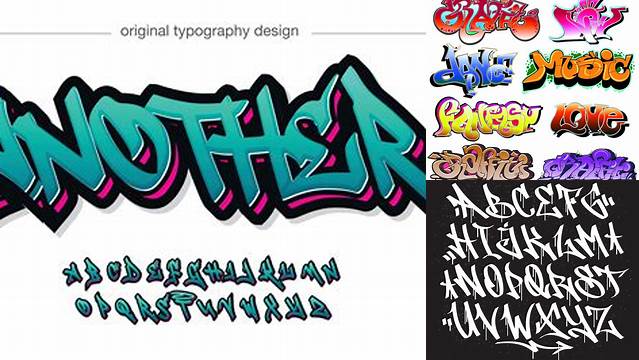
Graffiti Font Vector: Free Download Guide
Understanding Graffiti Fonts: More Than Just Tags
Alright guys, let's dive deep into the world of graffiti fonts. When you first hear 'graffiti font,' you might picture those wild, splashy tags you see on walls, right? But honestly, it's so much more than that! Graffiti fonts are a whole artistic movement translated into digital form. They embody a raw, urban energy, often characterized by bold strokes, dynamic curves, dripping effects, and sometimes even a sense of defiance. The beauty of these fonts lies in their versatility. While they originated from street art, they’ve exploded into graphic design, branding, and even personal projects. Think album covers, posters, T-shirt designs, logos for skate shops, or even just adding a cool vibe to your social media posts. The essence of a graffiti font is its unique personality. Each character is often hand-drawn, giving it an authentic, non-uniform feel that mass-produced fonts simply can't replicate. This distinctiveness is what makes them so powerful in making a statement. They scream individuality and creativity. When designers look for graffiti font vectors, they're not just looking for letters; they're seeking a specific aesthetic, a certain attitude that can elevate their work from ordinary to extraordinary. The digital age has made these artistic expressions incredibly accessible, allowing anyone with a computer to tap into this vibrant style. So, next time you see a graffiti font, remember it’s a piece of urban art ready to be unleashed in your next design project.
Why Vectors Are King for Graffiti Fonts
So, why are we talking specifically about graffiti font vectors? It's a super important distinction, guys, and here's why. When you download a font, it can come in different formats, and vector is usually the golden ticket, especially for something as dynamic as graffiti. Unlike raster images (like JPEGs or PNGs) which are made up of tiny pixels, vector graphics are based on mathematical equations. This means they are infinitely scalable. You can blow up a vector graphic to the size of a billboard or shrink it down to a postage stamp, and it will never lose its quality or get blurry. For graffiti fonts, this is a massive deal. Imagine you've created an awesome logo with a killer graffiti font. You want to print it on a business card, sure, but you also might want to put it on a massive banner for an event. If your font isn't a vector, that banner print will look jagged and pixelated, totally ruining the vibe. Vector formats like .AI (Adobe Illustrator), .EPS (Encapsulated PostScript), or .SVG (Scalable Vector Graphics) maintain crisp, clean lines no matter the size. This is crucial for the often intricate and detailed nature of graffiti lettering. The sharp edges and smooth curves that define these fonts stay sharp and smooth. Plus, vector files are usually easier to edit and manipulate. You can change colors, adjust stroke weights, or even modify individual letterforms within vector software like Adobe Illustrator or Inkscape. This level of control is invaluable when you want to customize a graffiti font to perfectly match your project’s needs. So, when you're hunting for that perfect graffiti font, always prioritize vector formats for maximum flexibility and professional results.
Exploring Free Graffiti Font Download Options
Now, let's get to the good stuff: finding free graffiti font downloads! The internet is a treasure trove, guys, but it can also be a bit of a wild west. You need to know where to look and what to watch out for. Many designers and font foundries generously offer some of their creations for free, often for personal use, sometimes even for commercial projects. Websites like DaFont, FontSquirrel, UrbanFonts, and Google Fonts (though less focused on typical graffiti styles, they have some edgier options) are great starting points. When you land on these sites, search for terms like 'graffiti,' 'urban,' 'street art,' or 'hip hop' fonts. You'll find a mind-boggling array of styles – from clean, blocky graffiti lettering to wild, dripping, and elaborate throw-ups. Always, always check the license agreement! This is super important. Free doesn't always mean free for everything. Some fonts are free for personal use only (like for your blog or personal social media), while others allow commercial use (meaning you can use them in designs you sell or for a business). Misunderstanding licenses can lead to legal headaches down the line, so take a moment to read the fine print. Look for keywords like 'free for personal use' or 'free for commercial use.' Sometimes, you might even find bundles or collections of free graffiti font vectors offered by artists looking to gain exposure. Keep an eye out on design communities and forums too. The key is persistence and careful checking. Don't just grab the first cool-looking font you see; verify its licensing and download from reputable sources to ensure you're getting clean, usable files.
Finding High-Quality Free Graffiti Font Vectors
Okay, so you've found some free graffiti fonts, but are they good? That's the next question, right? Not all free downloads are created equal, guys. Sometimes, free fonts can be a bit rough around the edges – think incomplete character sets (missing numbers or punctuation), inconsistent spacing (kerning nightmares!), or just poorly designed letterforms that don't quite capture the authentic graffiti spirit. When you're on the hunt for high-quality free graffiti font vectors, here's what to keep an eye out for. First, check the completeness of the character set. Does it have all the letters (uppercase and lowercase), numbers, and common punctuation marks you'll need? Some graffiti fonts are intentionally stylized, so seeing a limited set might be okay, but for general use, a full set is ideal. Second, look at the overall design consistency. Do the letters flow well together? Is the weight and style consistent across the alphabet? Check out the preview images provided by the font creator – zoom in if you can. Third, consider the source. Fonts from established free font sites like FontSquirrel or Google Fonts are often curated and tested for quality. If you're downloading from a less-known source, try to find reviews or see examples of the font used in real-world designs. Many artists who offer freebies will showcase their work, giving you a glimpse of the font's potential. Finally, remember that vector is still key. Ensure the download you're getting is in a vector format (.AI, .EPS, .SVG) if possible, or at least a high-resolution raster format that can be vectorized later if needed. Sometimes, you might find free vector packs that include graffiti-style lettering, which can be a fantastic resource. Don't settle for pixelated messes; aim for clean, versatile, and artistically sound graffiti vectors that will make your projects shine.
The Versatility of Graffiti Font Downloads
Let's talk about how incredibly versatile graffiti font downloads are, even the free ones! It’s not just about slapping text onto a poster, guys. These fonts can genuinely transform the look and feel of a project, adding an instant dose of urban cool and artistic flair. Think about branding for a startup. A carefully chosen graffiti font for a logo can communicate edginess, creativity, and a connection to youth culture, which might be perfect for a streetwear brand, a music label, or a tech company trying to disrupt the market. For merchandise, imagine T-shirts, hoodies, or hats emblazoned with bold graffiti lettering – instant street cred! Event promotion is another huge area. Posters for concerts, club nights, art exhibitions, or even community festivals can benefit immensely from the energetic vibe of graffiti fonts. They grab attention and signal a non-traditional, exciting event. In digital design, the applications are endless. Website headers, social media graphics, YouTube thumbnails, app icons – a well-placed graffiti font can make your content stand out in a crowded digital space. Even for personal projects, like creating custom invitations for a party, designing a unique birthday card, or personalizing a piece of digital art, graffiti fonts offer a way to inject personality and style. The key is understanding the context. While a wild, dripping font might be perfect for a punk band's flyer, a cleaner, more structured graffiti font could work wonders for a corporate brand aiming for a modern, urban aesthetic. Experimenting with different styles and seeing how they integrate with other design elements – colors, images, layouts – is where the magic happens. Graffiti fonts aren't just letters; they're a design tool that speaks a language of energy, rebellion, and artistic expression.
Finding Graffiti Font Bundles and Collections
Looking for graffiti font bundles or collections can be a really smart way to score a bunch of cool typefaces at once, sometimes even for free or at a significant discount! Instead of downloading individual fonts one by one, which can be time-consuming, bundles often group related styles together. You might find a pack dedicated to 'urban fonts,' 'street art styles,' or even specific subgenres of graffiti lettering. These collections are great because they often provide a cohesive set of fonts that work well together, ensuring consistency in your design projects. Where can you find these? Keep an eye on marketplaces like Creative Market, Envato Elements (which offers a subscription model), or bundles offered directly by font designers on platforms like MyFonts or Fontspring. While many bundles are paid, they often represent incredible value, giving you dozens of high-quality fonts for the price of just one or two. But what about free bundles? Sometimes, designers or platforms will offer limited-time freebies or special promotions where you can grab a selection of fonts at no cost. Following your favorite font foundries or graphic design resources on social media or signing up for their newsletters is a good way to stay informed about these opportunities. You might also find 'free font' sites that periodically release curated collections. When evaluating a bundle, check the quality and style of the fonts included. Do they align with the kind of look you're going for? And just like with individual fonts, always verify the licensing terms for the entire bundle. Are they all free for commercial use, or is there a mix? Understanding the licensing for each font within the bundle is crucial. Bundles can seriously level up your font library quickly, providing a diverse range of graffiti styles to play with.
Popular Styles of Graffiti Fonts Available
Graffiti art itself is incredibly diverse, and so are the fonts that emulate it, guys! When you're searching for graffiti font vector free download options, you'll encounter a whole spectrum of styles. Let's break down some of the most popular ones you'll likely find. First, you have the Bubble Style or Balloon Graffiti Fonts. These are characterized by their rounded, puffy, inflated letterforms that look like they're about to float away. They’re friendly, playful, and often used for more lighthearted or introductory designs. Think kids' party invitations or casual branding. Then there are Wildstyle Fonts. These are the most complex and intricate. Wildstyle involves overlapping letters, connecting strokes, arrow motifs, and often abstract elements. They're hard to read for the uninitiated but incredibly dynamic and visually stunning. These fonts are perfect for making a bold, artistic statement where legibility isn't the absolute top priority, but visual impact is. Next up are Blockbuster Fonts. These are typically bold, strong, and often have sharp edges or a stencil-like quality. They convey power, impact, and are great for headlines, titles, and anywhere you need text to command attention. Think movie posters or sports branding. You'll also find Dripping Fonts. As the name suggests, these fonts mimic the effect of paint literally dripping down the surface. They add a sense of urgency, messiness, and raw energy. They can be quite dramatic and are often used for music or extreme sports related designs. Finally, there are Stencil Fonts, which mimic the look of letters cut out of a stencil, often with small breaks or caps to allow the stencil material to hold together. These have a utilitarian, often rebellious feel, frequently associated with political or protest art. Understanding these different styles will help you narrow down your search and pick the perfect graffiti font to match the vibe of your project. Each style tells a different story and conveys a unique emotion.
Bubble Style Graffiti Fonts for Playful Designs
Let's get bubbly, guys! Bubble style graffiti fonts are all about that rounded, inflated look. Imagine letters that are so plump and full, they almost seem like they’re made of balloons ready to take flight. This style is inherently playful, friendly, and approachable. Unlike the aggressive or complex wildstyle, bubble fonts have a softer, more inviting aesthetic. They’re super popular for designs aimed at a younger audience or for projects that need to convey a sense of fun and lightheartedness. Think about birthday invitations for kids – a bubble font makes the text feel like part of a party. Or maybe a logo for a candy store, a toy shop, or an ice cream parlor; the roundness instantly communicates sweetness and joy. Even in branding for more general products, a touch of bubble style can make a brand feel more accessible and less intimidating. When you're looking for free graffiti font vectors, searching specifically for 'bubble graffiti,' 'balloon font,' or 'rounded graffiti' might yield great results. You’ll find variations where the bubbles are perfectly smooth and uniform, or others where they have a slightly more hand-drawn, irregular feel, adding to their charm. They can be fantastic for headlines, especially when you want to create a cheerful and eye-catching display. While they might not be suitable for a formal document, for anything requiring a dose of fun and whimsy, bubble style graffiti fonts are an absolute go-to. They bring an instant smile and a sense of playful energy to any design, making them a staple in the graphic designer's toolkit for lighthearted projects.
Wildstyle Graffiti Fonts: Complex and Artistic
Now, we're moving into the deep end of the pool with wildstyle graffiti fonts. If bubble letters are the friendly hello, wildstyle is the complex, mind-bending conversation you have with a seasoned artist. This is where graffiti lettering truly becomes an art form in itself. Wildstyle is characterized by its extreme complexity, with letters often interwoven, overlapping, and connected in ways that can make them challenging to decipher for the untrained eye. Think intricate curves, sharp angles, exaggerated flourishes, and often abstract elements thrown into the mix – arrows, crowns, or other symbolic motifs are common. These fonts aren't just about conveying text; they are about creating a visually arresting piece of art. When you download wildstyle graffiti fonts, you're getting something that carries a lot of attitude and artistic flair. They are perfect for projects where you want to make a powerful, edgy statement and where the visual impact is paramount. This could be album covers for hip-hop or electronic music, posters for underground art shows, avant-garde fashion designs, or distinctive branding for brands that want to project a highly creative and unconventional image. Because of their complexity, legibility can sometimes be an issue, so they're often best used for headlines, titles, or short bursts of text where the artistic form takes precedence. When searching for these, use terms like 'wildstyle,' 'complex graffiti,' or 'artistic graffiti font.' The download will likely be a vector file, allowing you to appreciate the intricate details and potentially even tweak them in vector software. Wildstyle fonts are the pinnacle of graffiti lettering artistry, offering unparalleled visual richness and a truly unique aesthetic.
Blockbuster Graffiti Fonts for Bold Statements
Need to make a statement that shouts? Blockbuster graffiti fonts are your best bet, guys! These fonts are designed for impact. Think big, bold, and unmissable. They often feature thick, heavy strokes, strong geometric shapes, and a solid, grounded presence. The 'blockbuster' name itself suggests something large-scale, attention-grabbing, and powerful, much like a hit movie title. These fonts typically have a clean but powerful aesthetic, often incorporating sharp corners or defined edges that give them a sturdy, impactful look. They are the go-to choice for headlines, titles, posters, banners, and any design element where you need the text to grab immediate attention and convey a sense of strength or importance. Imagine the title treatment for an action movie, the name of a sports team, or the headline on a promotional flyer for a major event – these are the kinds of applications where blockbuster graffiti fonts truly shine. They convey authority and presence without necessarily being overly ornate or complex like wildstyle. When you're looking for free graffiti font downloads, searching for 'block graffiti,' 'bold graffiti,' 'urban block font,' or even 'stencil graffiti' (as some block styles incorporate stencil elements) can lead you to great options. Because of their strong, defined shapes, they often work exceptionally well as vector graphics, maintaining their crispness even at large sizes. These fonts are perfect for designers who want to create a strong visual hierarchy and ensure their key messages aren't missed. They pack a punch and deliver maximum readability with maximum style.
Dripping Graffiti Fonts for a Raw, Edgy Feel
Let's talk about that authentic, messy vibe – the dripping graffiti fonts! These fonts literally mimic the look of paint running down a surface, giving your designs an instant raw, edgy, and energetic feel. It’s that classic street art look that many people associate with graffiti. The 'drips' can range from subtle, short trickles to long, dramatic streams, adding a dynamic element to the typography. This style is fantastic for projects that need to convey a sense of urgency, rebellion, or a 'just-off-the-streets' authenticity. Think about logos for skate brands, music genres like punk or hardcore, posters for underground events, or even just adding a cool, rebellious accent to a design. When you download free graffiti font vectors with a dripping effect, you're getting something that feels inherently dynamic. The natural flow of the drips can add a sense of movement to your text, making it feel alive and spontaneous. They can be incredibly eye-catching, especially when used for headlines or prominent text elements. However, like wildstyle, the drips can sometimes impact legibility, so they’re often best used where the artistic effect is more important than perfect readability. When searching, use terms like 'dripping graffiti font,' 'paint drip font,' or 'running paint font.' You'll find a range of styles, from slightly stylized drips to hyper-realistic ones. These fonts are perfect for injecting personality and a distinct urban flavor into your work, capturing that unmistakable feeling of freshly sprayed art.
Stencil Graffiti Fonts: Urban and Utilitarian
Moving on to another iconic graffiti look: stencil graffiti fonts. These fonts are inspired by the technique of using stencils to spray paint images or text onto surfaces. You know, like you see on walls, often used for quick, repeated messaging or political statements. The key characteristic of stencil fonts is the presence of breaks or 'bridges' within the letterforms, necessary to hold the stencil material together. This gives them a distinct, utilitarian, and often rugged appearance. They can range from clean, industrial-looking stencils to more distressed and grungy versions that look like they've been used and abused. Stencil graffiti fonts convey a sense of urgency, practicality, and often a rebellious or anti-establishment attitude. They're frequently associated with urban environments, military aesthetics, or protest art. Think posters for social movements, branding for rugged workwear, or even just adding a gritty texture to a design. When you download free graffiti font vectors in this style, you get that sharp, defined look that holds up incredibly well, especially at larger sizes. They are highly legible, despite the breaks in the letters, making them suitable for both headlines and body text in certain contexts. Popular search terms would include 'stencil font,' 'military stencil,' 'urban stencil,' or 'graffiti stencil.' They offer a raw, authentic urban feel that’s both functional and stylish, making them a powerful tool for designers looking to add a touch of gritty realism to their projects.
Where to Find Free Graffiti Font Downloads
Alright, you're hyped to find some cool graffiti fonts, but where do you actually go, guys? The digital world is brimming with options, but sticking to reliable sources is key to finding quality and avoiding headaches. One of the most popular and long-standing resources is DaFont. It’s a massive archive with thousands of free fonts, easily searchable by category, including 'Graffiti.' While you need to be diligent about checking the licenses (many are for personal use only), it’s a fantastic starting point. Another top-tier resource is FontSquirrel. They curate a collection of high-quality, free fonts, and crucially, they meticulously check the licensing, making it easier to find fonts suitable for commercial use. Their search filters are great for narrowing down styles. UrbanFonts is another solid option, offering a good selection of graffiti and urban-style fonts, again with varying license types. For a more curated experience, check out Google Fonts. While it doesn't have a huge selection of traditional 'graffiti' styles, it does offer some edgier, display-oriented fonts that can sometimes fit the bill, and all Google Fonts are free for commercial use. Beyond these major players, keep an eye on independent font designer portfolios and marketplaces. Sometimes designers will offer a few of their graffiti fonts for free as a promotion or as a sample of their work. Websites like Behance or Dribbble can be good places to discover these designers – often, they’ll link directly to their free downloads. Finally, don't forget dedicated vector sites like Freepik or Vecteezy. While they offer vectors in general, they often have font files or lettering packs in graffiti styles available for free download (remember to check their specific attribution requirements!). Always download from the source or a reputable aggregator to ensure file integrity and accurate licensing information.
DaFont: A Go-To for Free Fonts
Okay, let's talk about DaFont. If you've ever downloaded a free font online, chances are you've been here, guys. DaFont is practically a legend in the free font universe. It hosts an enormous library of typefaces submitted by designers from all over the globe. The sheer volume is staggering, and importantly for us, they have a dedicated 'Graffiti' category, alongside related ones like 'Script,' 'Dingbats,' and 'Fancy,' where you can often find graffiti-inspired styles. Navigating DaFont is pretty straightforward. You can browse by category, use their search bar (typing in 'graffiti,' 'urban,' 'street,' etc.), or check out their 'New Fonts' or 'Popular' sections. The real key when using DaFont, however, is understanding the licensing. Next to each font, you'll see an indication of its license type – typically '100% Free,' 'Free for Personal Use,' or sometimes links to commercial licenses. You must pay attention to this. A font marked 'Free for Personal Use' cannot legally be used for logos, business materials, or any project where you're making money. While DaFont is an amazing resource for discovering a vast array of graffiti styles, from the subtle to the extreme, always double-check the specific license terms before incorporating a font into a project, especially a commercial one. Despite the licensing diligence required, DaFont remains an indispensable tool for finding unique and expressive graffiti fonts without spending a dime for personal projects.
FontSquirrel: Quality and Commercial-Free Options
When you're hunting for free graffiti font downloads, but you really need to make sure they're safe for commercial use, FontSquirrel is your absolute best friend, guys. This site is different because it focuses specifically on high-quality fonts that are free for commercial use. They meticulously comb the web, find great fonts, and verify their licenses. This saves you a ton of time and potential legal trouble. Their search functionality is excellent, allowing you to filter by various attributes, including style. You can search for 'display' fonts or use keywords like 'urban,' 'street,' or even specific stylistic elements if you know them. While FontSquirrel might not have the sheer volume of obscure graffiti styles you'd find on DaFont, the fonts they do have are generally well-designed, professionally produced, and crucially, licensed for business use. This is a huge advantage if you're a freelancer, a small business owner, or working on any project that involves monetization. You can be much more confident that the fonts you download from FontSquirrel are legally sound for your commercial endeavors. They also offer features like a font identifier and a webfont generator, making it a comprehensive resource for designers. So, if your priority is finding quality graffiti fonts that are genuinely free for commercial projects, FontSquirrel should be at the top of your list. It’s all about finding those gems that are both stylish and legally sound for your business needs.
UrbanFonts: A Solid Selection of Urban Styles
Looking for that specific urban flavor? UrbanFonts is a great place to explore, guys. As the name suggests, this website has a strong focus on fonts that fit an urban aesthetic, which naturally includes a wide variety of graffiti and street-art-inspired styles. You'll find everything from bold, blocky lettering to more intricate, hand-drawn designs that capture the essence of street art. UrbanFonts provides a decent collection of free fonts, but like DaFont, it's essential to always check the license agreement attached to each font. Some are free for personal use, while others might be available for commercial use, or require a paid license for business applications. The site allows you to preview fonts easily with your own text, which is super helpful for visualizing how a graffiti font might look in your specific project. They also have search and category functions that make it relatively easy to sift through the options. While it might not have the same level of curation or commercial-use guarantee as FontSquirrel, UrbanFonts is a valuable resource for discovering unique graffiti font styles that might not be as prevalent on the larger, more general font sites. It's worth browsing if you're after that distinctive urban edge and want to expand your collection of graffiti-themed typography.
Behance & Dribbble: Discovering Independent Designers
Want to find something truly unique and potentially cutting-edge? Checking out platforms like Behance and Dribbble is a must, guys! These aren't traditional font repositories like DaFont or FontSquirrel. Instead, they are major online portfolios where designers showcase their work. Many talented graphic designers and typographers share their graffiti font creations here. You might find a designer posting a stunning new graffiti font they've created, offering it as a free download for a limited time, or perhaps as a teaser for a larger commercial set. Searching these platforms using terms like 'graffiti font,' 'free font,' 'vector font,' or 'typography' can uncover hidden gems. The advantage here is that you often get to see the font used in context – mockups of branding, posters, or other design applications – giving you a much better sense of its actual style and potential. The downside is that licensing information can sometimes be less clear or require you to navigate to the designer's personal website for details. Always look for clear download links or contact information. While it requires a bit more digging, discovering free graffiti fonts directly from the creators on Behance or Dribbble can lead you to some incredibly distinctive and high-quality typefaces that aren't available anywhere else. It’s a great way to support independent artists too!
Using Graffiti Font Vectors in Your Designs
So, you've downloaded some awesome graffiti font vectors, now what? It's time to put them to work and make your designs pop, guys! The beauty of vectors is their flexibility. First things first, open your vector file (usually .AI, .EPS, or .SVG) in a compatible vector editing software. Adobe Illustrator is the industry standard, but free alternatives like Inkscape work great too. Once your font is loaded, you can start manipulating it. Need to change the color? Easy. Want to make a letter slightly bigger or rotate it? No problem. This is where vector really shines for stylized fonts like graffiti. You can fine-tune the kerning (the space between letters) for perfect readability or adjust the stroke weight to make it bolder or finer. Experiment with layering different colors or adding gradients to make your text really stand out. Consider the context of your design. A vibrant, multi-colored graffiti text might be perfect for a music flyer, while a monochromatic, distressed version could suit a rugged brand identity. Don't be afraid to mix and match! Sometimes pairing a bold graffiti font for a headline with a cleaner, simpler font for body text creates a dynamic contrast that enhances readability. Think about integrating the text with other graphic elements. Can you make the letters interact with illustrations or background textures? Can you apply effects like shadows or outlines to give it depth? Remember, graffiti fonts bring a lot of personality, so let them lead the design while ensuring they complement the overall message and aesthetic. Use them strategically to add that urban edge and artistic flair that makes your work memorable.
Importing and Editing Vector Fonts
Let's get hands-on, guys! Importing and editing graffiti font vectors is where the real customization happens. Most free vector graffiti fonts will come in formats like .AI (Adobe Illustrator), .EPS (Encapsulated PostScript), or .SVG (Scalable Vector Graphics). You'll need vector editing software to open and work with these. Adobe Illustrator is the king here, but if you're on a budget, Inkscape (free and open-source) is a powerful alternative. To import, simply open your software and go to 'File > Open' and select your font file. If it’s an .SVG file, you might be able to drag and drop it directly onto your artboard. Once the font is open, you'll likely see that the text is already converted into shapes or paths. This is key! It means you can treat each letter like an individual object. Need to make a letter 'fatter'? Select the letter, and if it's made of paths, you can use the 'Direct Selection Tool' (or similar) to adjust anchor points and manipulate the curves directly. Want to change the color? Simply select the letter(s) and choose a new fill or stroke color from your color palette. You can also ungroup elements if the font has multiple parts (like outlines or fills) and edit them separately. For instance, you could remove the 'drip' effect from a font if you prefer a cleaner look, or add your own custom flourishes. The possibilities are endless, allowing you to truly make the font your own and ensure it fits perfectly with your design vision. This level of control is what makes working with vectors so powerful.
Combining Graffiti Fonts with Other Elements
Creating a killer design often involves more than just text, guys. Combining graffiti font vectors with other graphic elements is where you can really bring your vision to life! Think about the context. Are you designing a poster? You might pair a bold graffiti headline with a background image that complements the urban vibe – perhaps a cityscape, a textured concrete wall, or abstract shapes. For a logo, you might integrate the graffiti lettering with an icon or symbol that represents the brand. Social media graphics can be a playground for this! Try overlaying graffiti text onto a photo, using transparency effects, or creating a collage of imagery with your text as the focal point. Don't be afraid to experiment with scale and placement. Make the text enormous and dominant, or use smaller snippets as accents. You can also blend the font's style with other elements. If you have a grungy graffiti font, try pairing it with distressed textures or rough-edged graphics. If it’s a cleaner, more modern graffiti style, perhaps combine it with flat design elements or sharp vector illustrations. Consider the color palette. Ensure your graffiti text contrasts well with its background and that the colors harmonize with the overall design. Sometimes, the best combinations are unexpected – a splash of vibrant graffiti text against a minimalist background can be incredibly striking. The goal is to create a cohesive and visually appealing composition where the graffiti font enhances, rather than overwhelms, the other elements.
Adding Effects and Textures to Graffiti Text
Ready to take your graffiti text to the next level, guys? Adding effects and textures is how you make it truly unique and visually striking! Since we’re often working with vector files, we have a lot of control. One common approach is adding texture overlays. You can import a grunge texture, a spray paint splatter image, or even a paper texture into your vector software and use blending modes (like Multiply, Overlay, or Soft Light) to apply it over your graffiti text. This can give it an instantly weathered, authentic feel. Another effect is distress or roughening. Many vector programs have tools to roughen edges or add jaggedness to paths, which can make clean vector letters look more hand-drawn or worn. You can also play with drop shadows or outer glows to give your text depth and make it pop off the background. Experiment with different colors for these effects – a subtle dark shadow, or a vibrant neon glow can dramatically change the mood. If you're aiming for a painted look, consider adding subtle gradients or internal textures within the letter shapes themselves. You can even simulate a spray paint effect by using brushes with a spatter texture if your software allows. For a more advanced look, try creating outlines or borders around the letters, perhaps in a contrasting color, mimicking how graffiti artists often add highlights or edges to their work. The key is to enhance the graffiti aesthetic without making the text illegible. Start subtle and build up the effects, constantly checking how they integrate with the rest of your design. These touches add that professional polish and make your graffiti typography truly stand out.
Ensuring Readability with Stylized Fonts
Graffiti fonts are undeniably cool, but let's be real, guys, readability can sometimes be a challenge. The whole point of stylized typography is to be eye-catching, but if nobody can actually read what it says, you've got a problem! So, how do you ensure readability with stylized graffiti fonts? First, choose your font wisely based on the context. A super complex wildstyle font might be amazing for an art piece, but terrible for a product label where people need to quickly identify what they're buying. Opt for cleaner, more structured graffiti fonts (like some block or stencil styles) when legibility is crucial. Second, pay close attention to kerning and spacing. Even with a relatively clear font, poorly spaced letters can become a jumbled mess. Manually adjust the space between individual letters (kerning) and the overall spacing between words to ensure they are distinct and easy to follow. Vector editing software is your best friend here. Third, use contrast effectively. Make sure your graffiti text has enough contrast against its background. If you have a dark font, don't put it on a dark background! Sometimes, adding a subtle outline, a drop shadow, or a slight background shape behind the text can help it stand out and improve legibility significantly. Fourth, consider the size and context. A graffiti font might be perfectly readable as a large headline but become illegible when shrunk down for a small print or icon. Test your design at different sizes to see how it holds up. Finally, sometimes less is more. Don't overuse extremely stylized fonts, especially for long blocks of text. Use them for impact and short, punchy statements, and pair them with a more readable font for supporting information. Balancing style and clarity is key to successful design.
Tips for Using Graffiti Fonts Effectively
So you've got your free graffiti font vector download, and you're ready to unleash some urban cool on your projects. But how do you use these powerful tools effectively, guys? It’s not just about slapping them everywhere! Here are some pro tips to make your graffiti typography sing. First, know your audience and message. A playful bubble font is great for a kids' party invite, but probably not for a law firm's branding. Understand the vibe your chosen graffiti font conveys and make sure it aligns with your project's goals. Second, use them strategically. Graffiti fonts are typically best suited for headlines, titles, logos, or short, impactful phrases. They often aren't ideal for long paragraphs of body text where readability is paramount. Think of them as the exclamation point or the artistic flourish in your design. Third, balance is key. Pair your bold graffiti font with simpler, more neutral typography for body copy or supporting text. This creates visual hierarchy and ensures the overall design doesn't become too chaotic or hard to read. A clean sans-serif or serif font can provide a necessary grounding element. Fourth, consider the color palette. Graffiti fonts often come in vibrant, energetic styles. Make sure the colors you choose complement the font's personality and the overall design aesthetic. Experiment with contrasts and harmonies. Fifth, don't be afraid to customize. Since you're working with vectors, tweak the letters! Adjust spacing, modify shapes slightly, add custom elements – make the font truly yours. This level of personalization elevates your design from using a generic font to creating something unique. Finally, test, test, test! View your design at actual size, on different screens if possible. Ensure the text is legible and impactful in its intended context. Effective use is all about harnessing the power and personality of graffiti fonts without sacrificing clarity or professionalism.
Choosing the Right Graffiti Font for Your Project
Picking the perfect graffiti font for your project can feel like a treasure hunt, guys, but it's all about matching the font's vibe to your needs. Start by asking yourself: What's the overall mood or message I want to convey? Is it energetic and rebellious (think wildstyle or dripping fonts)? Is it playful and fun (hello, bubble fonts)? Or is it bold and impactful (blockbuster or stencil styles)? Consider your target audience. What kind of aesthetic will resonate with them? For a streetwear brand, a gritty, authentic graffiti style might be ideal. For a music festival, something more vibrant and dynamic could work. Think about the application – is it for a logo, a poster, a website banner, or merchandise? Logos often benefit from unique, memorable fonts that are still relatively legible, while posters can handle more complex or artistic styles. Look at the details: Do you need uppercase and lowercase letters? Numbers? Punctuation? Ensure the font includes the characters you need. Also, consider the level of detail. Highly intricate fonts might not scale down well for small applications. Always preview the font with your project's key text to see how it looks in context. Sometimes, you might even need a combination – a strong graffiti font for the main title and a cleaner font for the supporting details. Trust your gut, but also consider these practical aspects to make sure your chosen graffiti font doesn't just look cool, but also serves your project effectively.
The Role of Color in Graffiti Typography
Color is absolutely essential when working with graffiti typography, guys! Think about actual street art – the colors are often what make it pop, grab your attention, and convey emotion. The same applies when you're using graffiti fonts in your designs. The colors you choose can drastically alter the font's personality and impact. For instance, using bright, neon colors on a dripping font can amplify its energetic, raw feel, making it perfect for a club flyer. On the other hand, using a limited, monochromatic palette (like black and white, or shades of grey) with a bold blockbuster font can create a stark, powerful, and sophisticated urban statement. Consider the contrast: high contrast between the text and background ensures readability, which is always crucial, especially with stylized fonts. Low contrast might create a more subtle, integrated look, but can risk becoming illegible. Think about color psychology too. Reds and oranges can convey energy and passion, blues and greens might feel cooler or more technical, while yellows and pinks can be playful or vibrant. Don't forget gradients! Applying a smooth gradient fill to graffiti letters can add depth and visual interest, mimicking the way light hits spray paint. You can also use outlines or shadows in contrasting colors to make the text stand out further, a technique common in actual graffiti. Ultimately, the right color choices will amplify the inherent style of the graffiti font and ensure your message is delivered with both visual flair and clarity.
Creating Contrast and Hierarchy with Graffiti Fonts
When you're designing, especially with bold elements like graffiti fonts, creating contrast and hierarchy is super important, guys. You need to guide the viewer's eye and make sure the most important information gets noticed first. Graffiti fonts, by their nature, are often eye-catching, making them great candidates for headlines or key titles. Use their visual weight to your advantage. Place your main graffiti text prominently, perhaps larger or in a more vibrant color, to establish it as the primary focus. Then, use simpler, less stylized fonts for secondary information or body text. This contrast in style immediately creates a visual distinction – the eye is drawn to the exciting graffiti text, and then settles on the more readable text for details. Think about color contrast too. A bright graffiti headline against a muted background, or vice-versa, will instantly create a focal point. Spatial hierarchy also plays a role. Use negative space effectively around your graffiti text to give it breathing room and emphasize its importance. Don't cram it amongst other elements unless that's a specific stylistic choice. By strategically using the boldness of graffiti fonts for emphasis and pairing them with more subdued typography, you create a clear path for the viewer, ensuring your message is not only seen but also understood effectively. It’s all about making deliberate choices to guide the audience's attention.
Legibility vs. Style: Finding the Balance
This is the age-old dilemma when using any display font, especially graffiti ones, guys: legibility versus style. How do you get that awesome, edgy look without making your text impossible to read? It's a balancing act! Firstly, know when to use which type of graffiti font. For critical information – like contact details, prices, or instructions – opt for cleaner, more structured graffiti styles (think stencil or some block fonts). Save the wild, complex, or heavily dripping fonts for purely decorative elements, large headlines where context helps decipherment, or artistic pieces. Secondly, proximity matters. If you’re using a complex font, ensure it’s large enough that the details are clear. Sometimes, adding a simple, solid background color or a subtle outline behind the text can dramatically improve legibility by separating it from a busy background. Thirdly, consider the medium. A font that looks legible on a large screen might become a pixelated mess or too dense in print, especially at small sizes. Test your designs across different platforms and sizes. Finally, remember that some level of interpretation is inherent in highly stylized fonts. The goal isn't always perfect, effortless reading like a textbook; it's about creating a strong visual impression while still conveying the message. It’s about finding that sweet spot where the font’s unique style enhances the design without hindering communication. Master this balance, and your graffiti typography will be both stunning and effective.
The Future of Graffiti Font Vectors
What's next for graffiti font vectors, guys? It’s a constantly evolving scene, much like graffiti art itself. We're seeing a trend towards even more dynamic and interactive typography. Think fonts that incorporate subtle animations, respond to user interaction on websites, or are designed for augmented reality experiences. The integration of AI might also play a role, potentially helping designers generate unique graffiti-style letterforms or even create personalized font variations based on input parameters. Furthermore, as digital tools become more accessible, expect to see even more incredibly detailed and artistically rich graffiti fonts emerging from independent creators worldwide. The line between digital art and typography continues to blur, with graffiti fonts often sitting right at that intersection. We might also see a greater emphasis on variable fonts within the graffiti space, allowing for finer control over weight, slant, and other characteristics within a single font file, offering designers unprecedented flexibility. The core essence, however – that raw, urban energy and artistic expression – will likely remain. Graffiti fonts will continue to be a powerful way for brands and creators to inject personality, authenticity, and a rebellious spirit into their visual communication, ensuring their relevance in the ever-changing landscape of design. The demand for unique, expressive typography isn't going away, and graffiti fonts are perfectly positioned to meet that need.
Trends in Digital Graffiti Typography
The world of digital graffiti typography is always buzzing with new ideas, guys! One major trend we're seeing is the move towards more expressive and animated fonts. Beyond static images, designers are creating fonts with built-in motion – think subtle letter wiggles, paint splashes that appear on hover, or text that animates in sequence. This brings a whole new level of dynamism to digital design, especially for websites and social media content. Another significant trend is the increased use of variable fonts. These are single font files that contain a range of styles (like weight, width, or slant), allowing for incredibly fine-tuned customization. Imagine being able to subtly adjust the 'drip' effect or the 'puffiness' of a graffiti font on the fly! We're also seeing a rise in fonts designed specifically for immersive technologies like AR and VR, where text needs to exist and interact within a 3D space. Furthermore, the fusion of AI and design is starting to impact typography, with tools that can help generate novel letterforms or variations, pushing the boundaries of what's possible. Accessibility and inclusivity are also becoming more important, leading to designs that balance artistic flair with clear readability across various devices and for diverse audiences. The digital realm offers endless possibilities for reinventing graffiti styles, keeping this urban art form fresh and relevant.
AI and the Evolution of Graffiti Fonts
The intersection of Artificial Intelligence (AI) and graffiti fonts is a super exciting frontier, guys! Imagine AI tools that can analyze thousands of existing graffiti pieces and typographic styles, then generate entirely new, unique letterforms based on those patterns. This could lead to fonts with an unprecedented level of detail, complexity, or even entirely novel aesthetics that human designers might not have conceived of on their own. AI could also personalize font creation. You might input keywords describing the mood you want – 'aggressive,' 'smooth,' 'chaotic' – and an AI could generate a custom graffiti font tailored to your needs. Furthermore, AI-powered tools can assist in the refinement process, automatically adjusting kerning, ensuring consistency across letterforms, or even suggesting stylistic variations. For instance, an AI could take a basic graffiti font and automatically apply various 'drip' effects or 'spray paint' textures with just a few clicks. While AI won't replace the creativity and artistic intuition of human designers, it's poised to become an incredibly powerful co-pilot, speeding up workflows, unlocking new creative possibilities, and democratizing the creation of unique, complex graffiti typography. It’s about augmenting human creativity, not replacing it, leading to even more innovative and expressive font designs in the future.
The Enduring Appeal of Urban Typography
Why do graffiti fonts and urban typography, in general, maintain such a strong hold on our design world, guys? It's more than just a trend; it's deeply rooted in culture and aesthetics. Graffiti itself is a raw, authentic form of self-expression, often born from subcultures and a desire to make a mark on the urban landscape. This inherent authenticity and rebellious spirit translate directly into the fonts, giving them a powerful emotional resonance. In a world often saturated with clean, corporate, and sometimes sterile design, graffiti fonts offer a jolt of energy, personality, and a connection to something real and unfiltered. They speak of creativity, individuality, and a certain defiance against the status quo. This makes them incredibly appealing for brands trying to connect with younger demographics, artists looking to express a unique vision, or anyone wanting to add a touch of edge and character to their work. Urban typography taps into the visual language of the streets – a language that is dynamic, constantly evolving, and full of life. Its enduring appeal lies in its ability to convey attitude, authenticity, and a sense of place, making it a timeless choice for adding impact and meaning to visual communication.
Accessibility and Future Innovations
Looking ahead, accessibility and innovation will shape the future of graffiti font vectors, guys. We're already seeing advancements in how fonts are delivered and used. Webfonts and apps make it easier than ever to access and implement these styles online. Future innovations might include fonts with built-in adaptive features – perhaps text that automatically adjusts its weight or spacing for optimal readability on different screen sizes or in varying light conditions. Imagine AR-enabled fonts that can be placed and manipulated in real-world environments through your phone camera, adding a digital graffiti layer to reality. Furthermore, as AI becomes more integrated, we could see tools that allow users to generate highly personalized graffiti lettering with specific stylistic parameters, making unique typographic expression more accessible to a wider range of people, not just seasoned designers. The focus will likely remain on harnessing the raw energy and artistic spirit of graffiti while leveraging technology to make these fonts more versatile, user-friendly, and impactful across an ever-expanding range of digital and physical platforms. The goal is to keep that urban edge while pushing the boundaries of what's possible in typography.
Conclusion: Unleash Your Creativity with Graffiti Fonts
So there you have it, guys! We've journeyed through the vibrant world of graffiti font vectors, exploring why they're so popular, where to find awesome free downloads, the different styles available, and how to use them effectively in your designs. Remember, these fonts are more than just letters; they're a gateway to expressing urban energy, artistic flair, and bold individuality. Whether you're designing a logo, a poster, or just spicing up your social media, a well-chosen graffiti font can make a huge impact. Always be mindful of licensing when downloading free resources, prioritize vector formats for scalability, and don't shy away from experimenting with colors, effects, and combinations. The key is to balance that killer style with clear readability. So, go forth, explore the amazing free resources out there, and unleash your creativity! Let those graffiti fonts bring a dynamic, authentic edge to your next project. Happy designing!